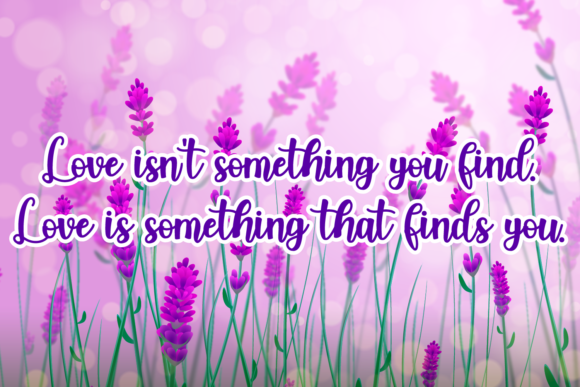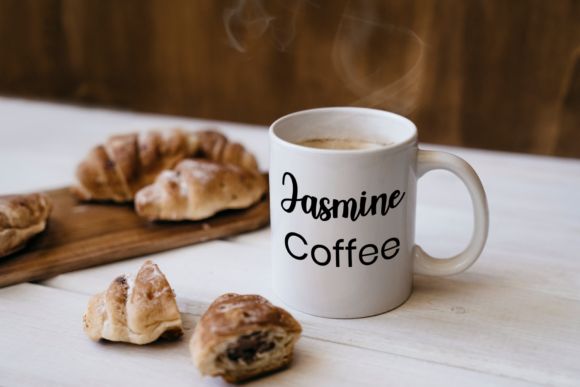
Jasmine Lovely Font
db-ku.com - Script & Handwritten -- Jasmine Lovely is an incredibly genuine handwritten font. Expertly designed to become a true favorite, this font has the potential to bring each of your creative ideas to the highest level!